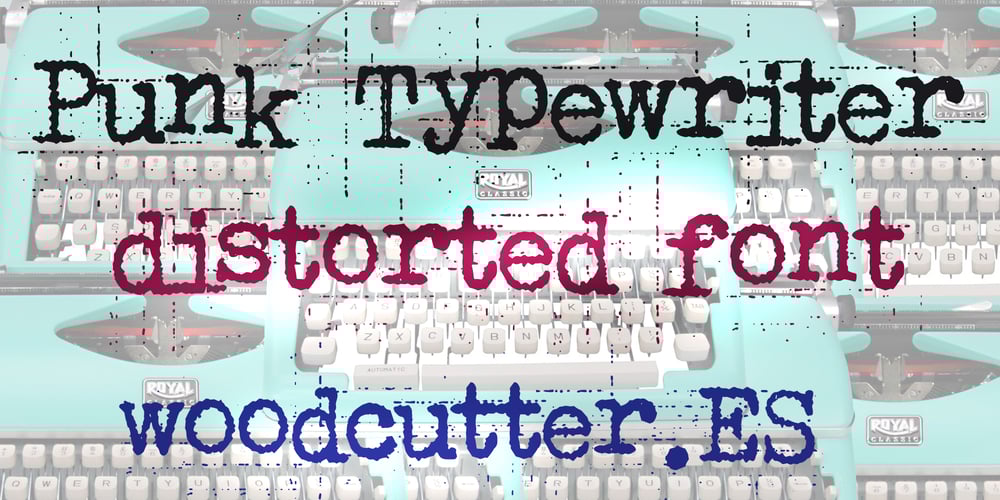
Punk Typewriter
Punk Typewriter font
Punk Typewriter Font Family was designed by Jordi Manero and published by Woodcutter. Punk Typewriter contains 1 styles and family package options. “Inspired by the raw energy of punk aesthetics and the nostalgia of old typewriters, ‘Punk Typewriter’ font brings a rebellious edge to your designs. Each letter appears slightly displaced, evoking the imperfect charm of a malfunctioning typewriter. With a subtle nod to punk aesthetics, this font captures the DIY ethos and nonconformity of the punk movement. Perfect for projects seeking to inject a gritty, rebellious vibe into their designs, from album covers to urban-themed posters. ‘Punk Typewriter’ adds a touch of authenticity and character, allowing you to stand out with a unique visual identity.”